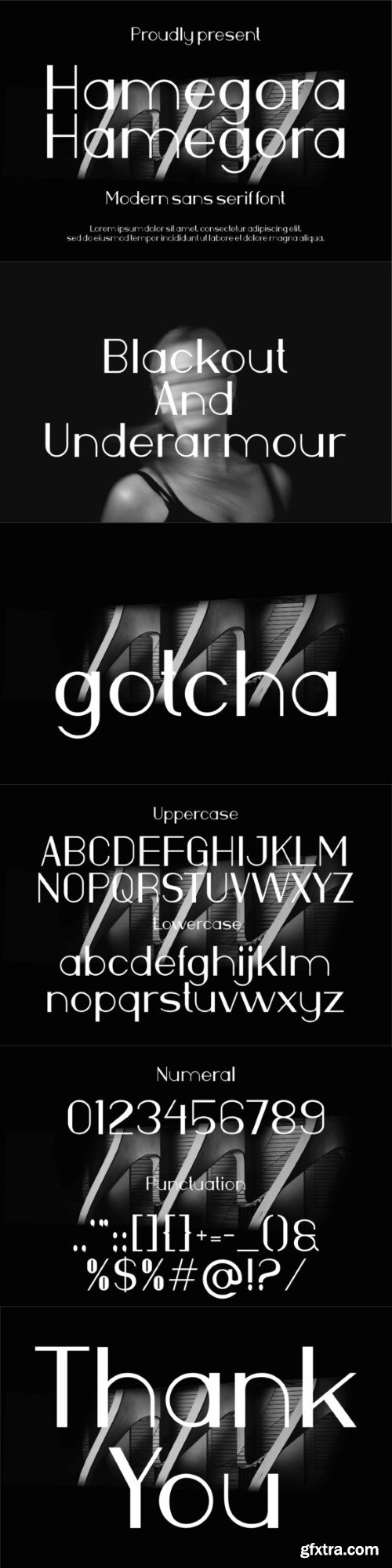
Hamegora 字体
**Hamegora** is an authentic and unique modern sans serif font that is perfect for professional and product branding needs. This font is suitable for any branding project such as quotes, logos, blog headers, posters, ribbons, letters, invitations, stationery, etc… It is designed to be versatile and flexible that can be used on a variety of projects and mediums. extraordinary in a variety of contexts.